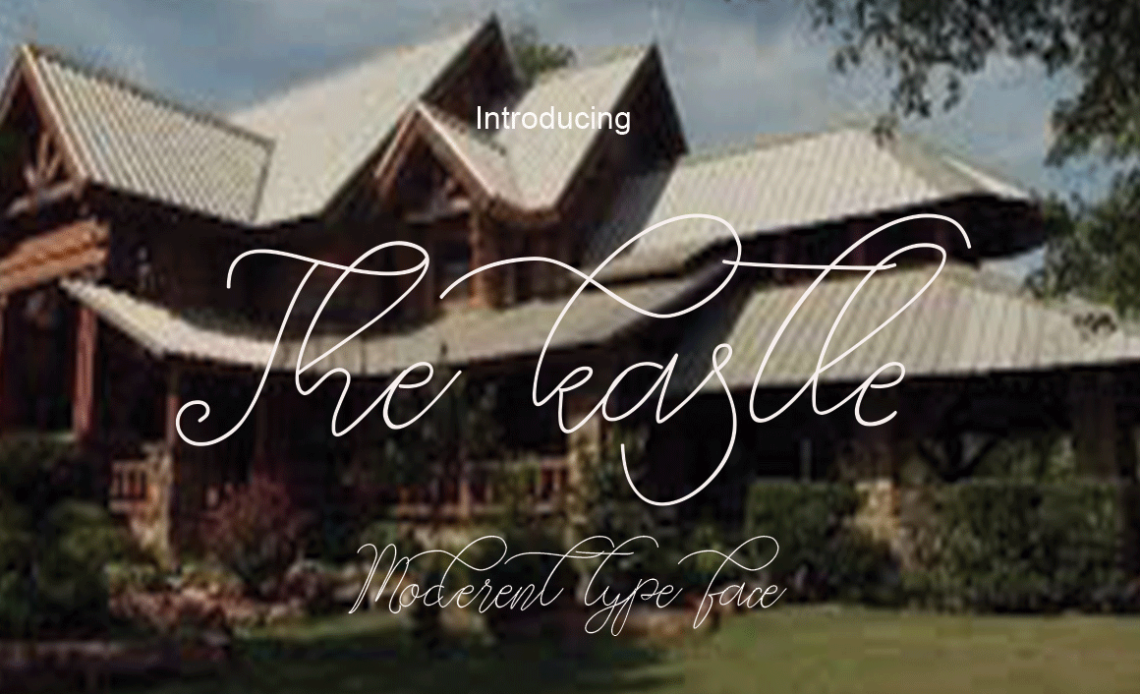
Unleash the Enchantment of Expression with "The Kastle Font": A Delicate Touch for Your Design Masterpieces
Embrace the allure of exquisite typography with "The Kastle Font", a super thin monoline script font that dances across the page with its graceful strokes and fluid handwritten style. This delicate font, crafted by the talented Sinfa.co, is a symphony of elegance, adding a touch of whimsical charm to your creative projects.
"The Kastle Font" is not just a font; it's an invitation to an enchanting world of expression. With its flowing lines and delicate hairlines, this script font evokes a sense of intimacy and grace. It's perfect for adding a personal touch to your designs, whether you're creating wedding invitations, heartfelt letters, or eye-catching logos.
Step into a Realm of Endless Creativity and Beauty
Explore the boundless possibilities of "The Kastle Font" as it gracefully adorns your designs with its understated charm. Its versatility shines in a wide array of projects, from branding and marketing materials to social media posts and website headers. Let the font's delicate strokes capture attention and create a lasting impression that resonates with your audience.
With "The Kastle Font", you'll find yourself immersed in a world of creativity, where every word, every letter, and every stroke tells a story. Its fluidity lends itself perfectly to logos and branding, evoking a sense of sophistication and uniqueness. It's also an ideal choice for invitations and greeting cards, adding a touch of warmth and sincerity to your heartfelt messages.
Discover the Art of Subtle Elegance and Timeless Beauty
"The Kastle Font" is more than just a font; it's a reflection of your refined taste and discerning eye for design. Its delicate lines dance across the page, creating an aura of understated elegance that captivates and inspires. Whether you're a seasoned designer or just starting your creative journey, this script font is your perfect companion, guiding you towards design excellence.
As you explore the depths of "The Kastle Font", you'll discover a world of endless possibilities. Its versatility allows you to explore bold and unconventional design choices, while its delicate charm ensures that your creations remain timeless and captivating.